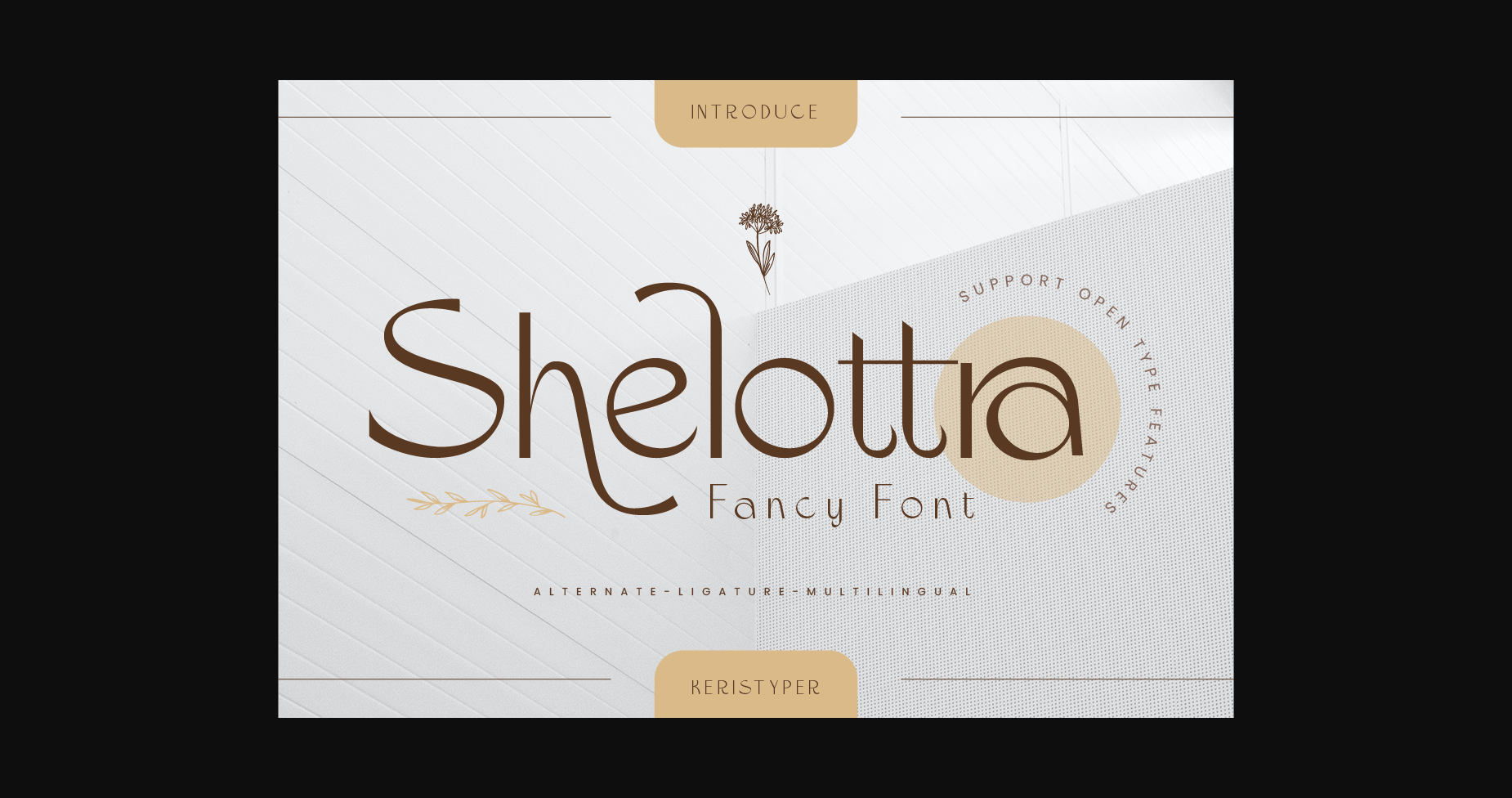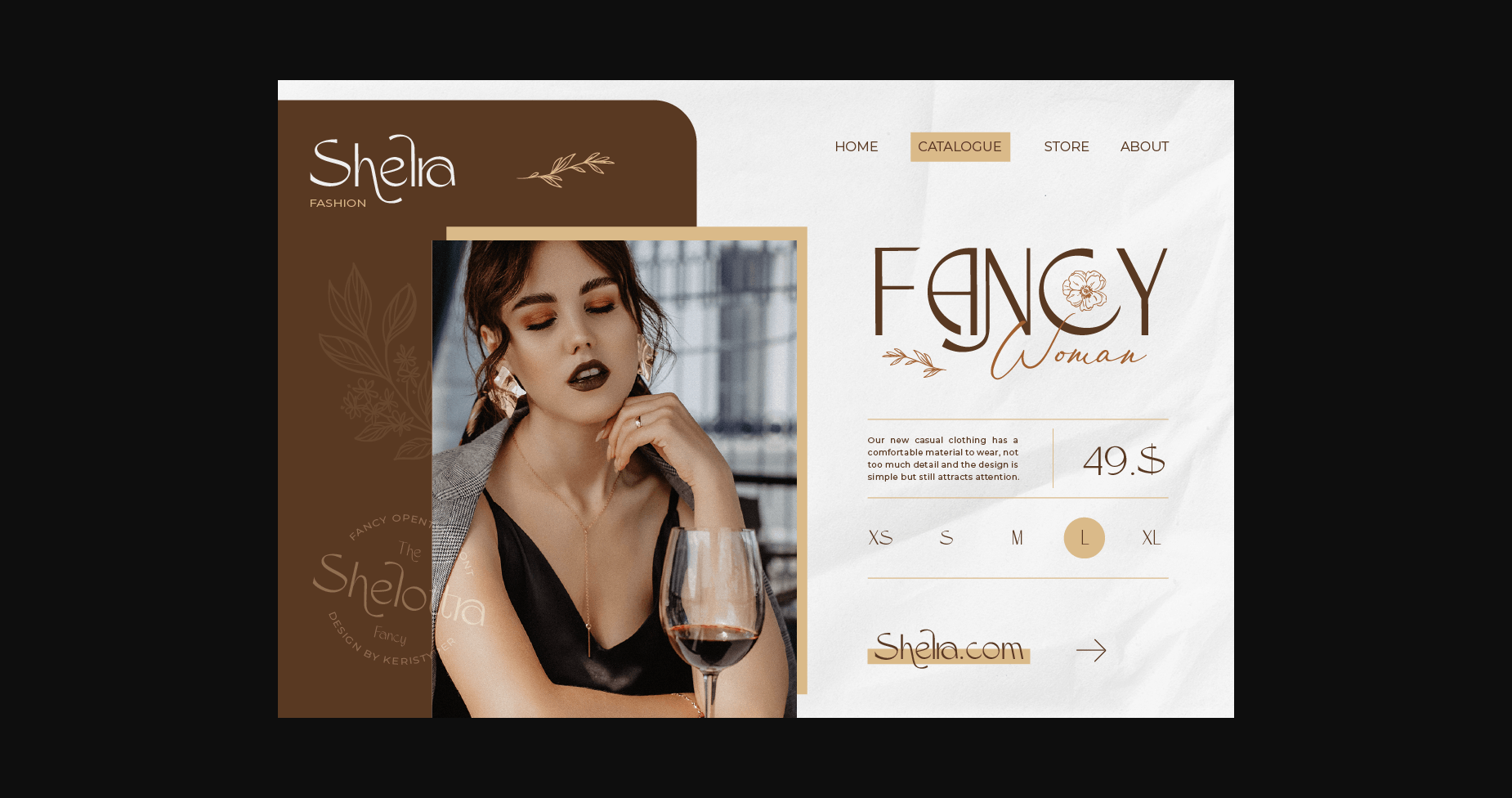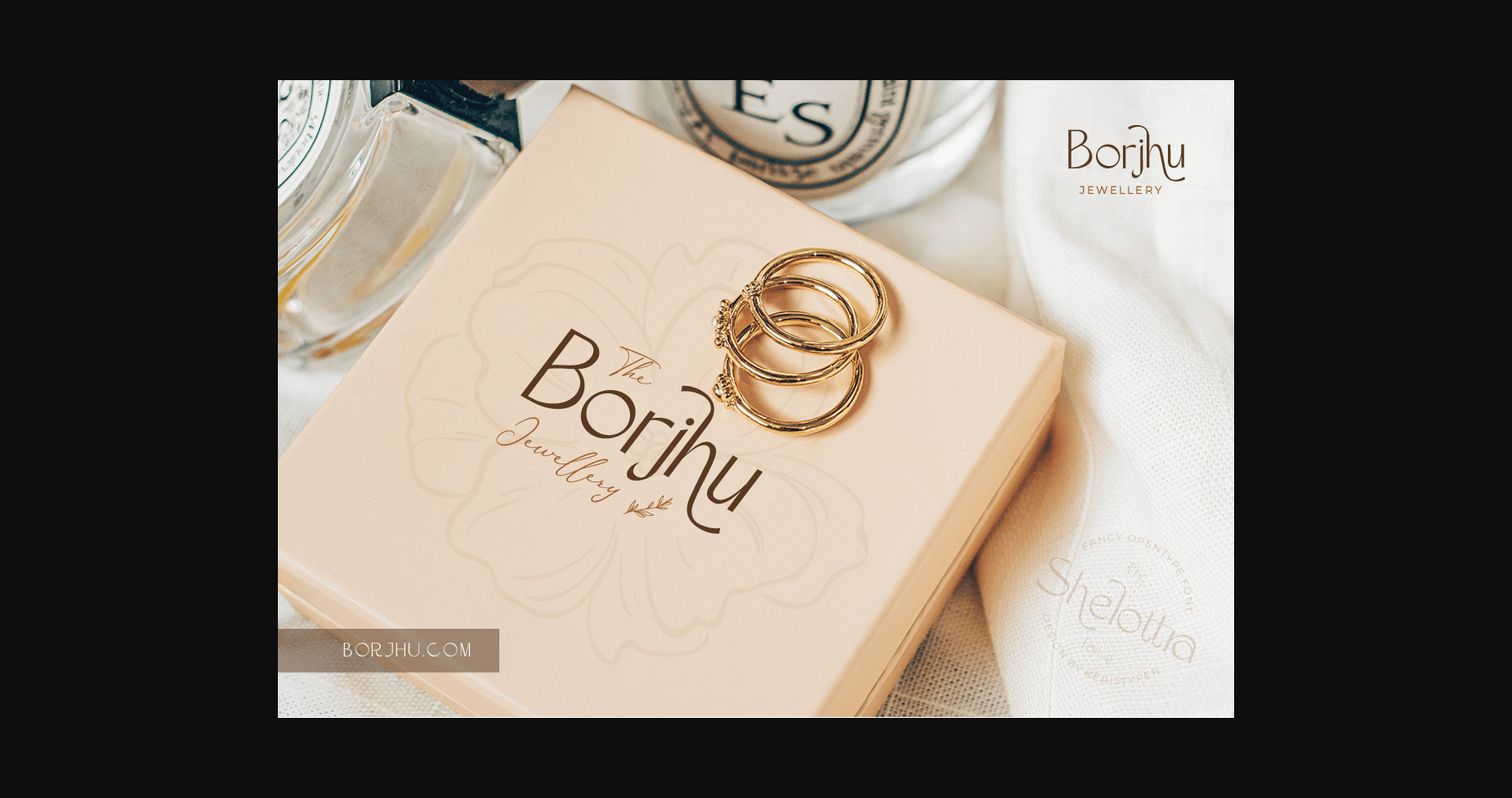
About Shelottra Font
Shelottra is an elegant beauty fancy display font with expressive shapes and characteristics to bring magical imagination to your design. This font is perfect for logo designs, social media, movie titles, book titles, short text, or even long text letters. It complements a secondary script, sans, or serif font. This font is PUA encoded which means you can access all of the glyphs and swashes with ease!